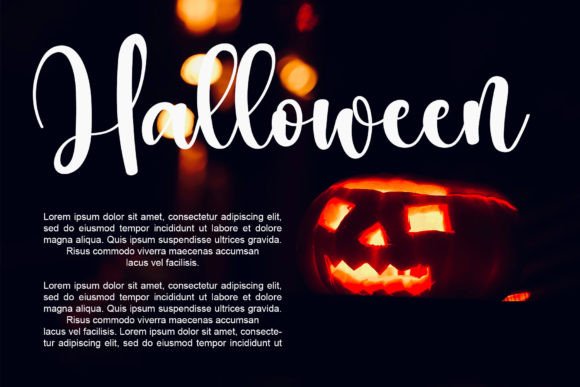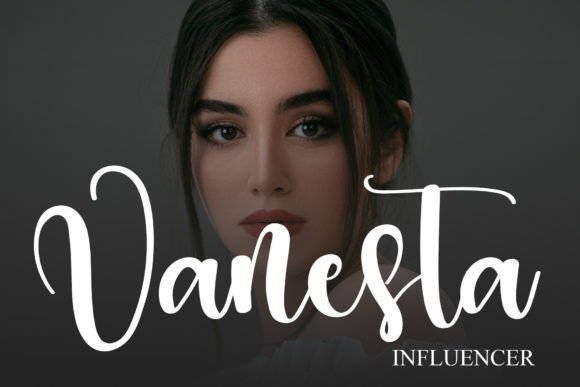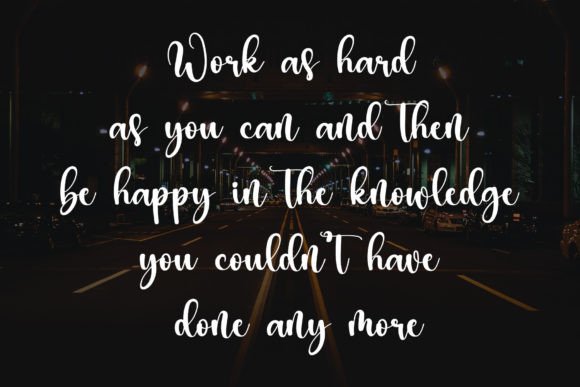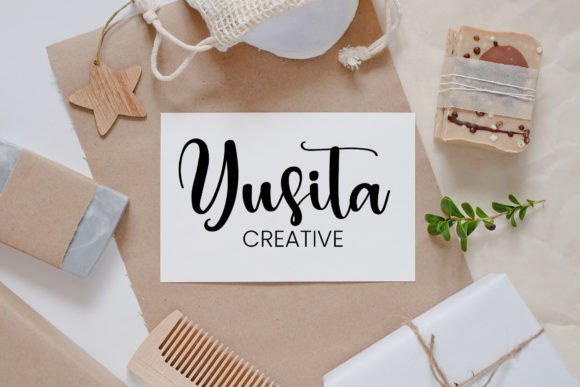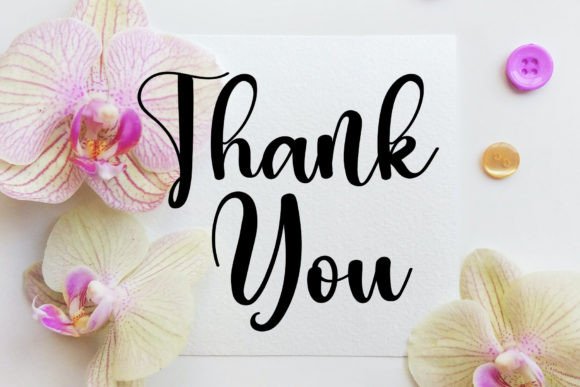
Beautiful Wedding Font: Elevate Your Designs with Elegance and Style
When it comes to creating stunning designs for special occasions, the right font can make all the difference. For wedding-related designs, a beautiful and elegant script font is often the perfect choice. Introducing Beautiful Wedding Font, a stylish and incredibly elegant script font that can add a touch of sophistication to your creations. In this article, we’ll explore the features and benefits of Beautiful Wedding Font, and how it can elevate your designs for weddings and beyond.
What is Beautiful Wedding Font?
Beautiful Wedding Font is a gorgeous script font that exudes elegance and refinement. Its flowing lines and delicate curves make it perfect for creating romantic and whimsical designs. This font is specifically designed to add a handwritten touch to your creations, making it ideal for wedding invitations, thank you cards, quotes, greeting cards, logos, business cards, and more.
Key Features of Beautiful Wedding Font
- Elegant Script Style: Beautiful Wedding Font features a beautiful script style with flowing lines and delicate curves, making it perfect for creating romantic and sophisticated designs.
- Versatile: This font is versatile and can be used for a variety of design projects, including wedding invitations, thank you cards, quotes, greeting cards, logos, business cards, and more.
- Handwritten Touch: Beautiful Wedding Font adds a handwritten touch to your designs, making them look more personal and unique.
- Easy to Read: Despite its elegant and cursive style, Beautiful Wedding Font is easy to read, making it perfect for designs that require a clear and legible font.
Uses of Beautiful Wedding Font
Beautiful Wedding Font is a versatile font that can be used for a variety of design projects. Here are some of the most popular uses of this stunning font:
- Wedding Invitations: Create stunning wedding invitations that set the tone for the big day.
- Thank You Cards: Express your gratitude with beautiful thank you cards that feature this elegant font.
- Quotes and Greeting Cards: Add a touch of elegance to your quotes and greeting cards with Beautiful Wedding Font.
- Logos and Business Cards: Use this font to create professional and elegant logos and business cards that make a lasting impression.
Tips for Using Beautiful Wedding Font
Here are some tips for using Beautiful Wedding Font in your designs:
- Pair with Other Fonts: Pair Beautiful Wedding Font with other fonts to create a unique and visually appealing design.
- Use for Headings and Titles: Use Beautiful Wedding Font for headings and titles to add a touch of elegance to your design.